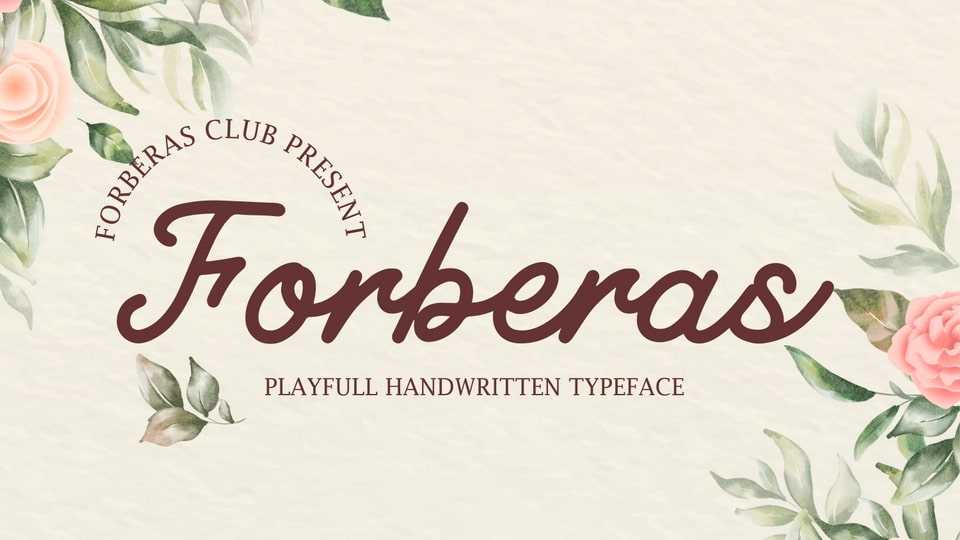
Download Forberas font, a sweet and playful handwritten font that is crafted with great care for maximum results. It will add elegance and personal touch to any of your design projects.